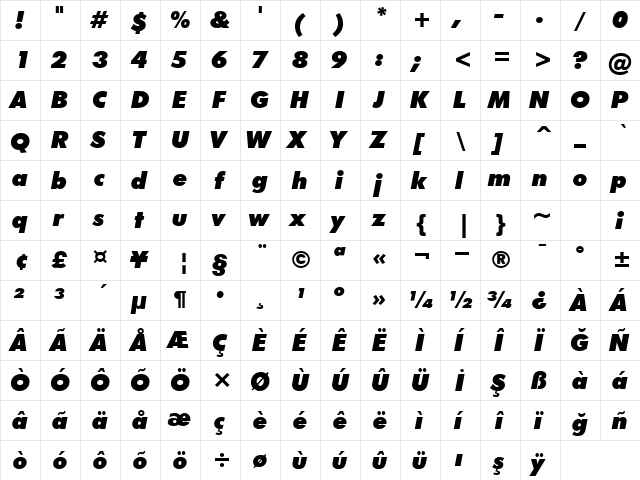
00458 Regular
Design Context for 00458 Typeface
00458 offers clean, dependable letterforms without strong stylistic allegiance, making it a practical choice for designers who need flexibility.